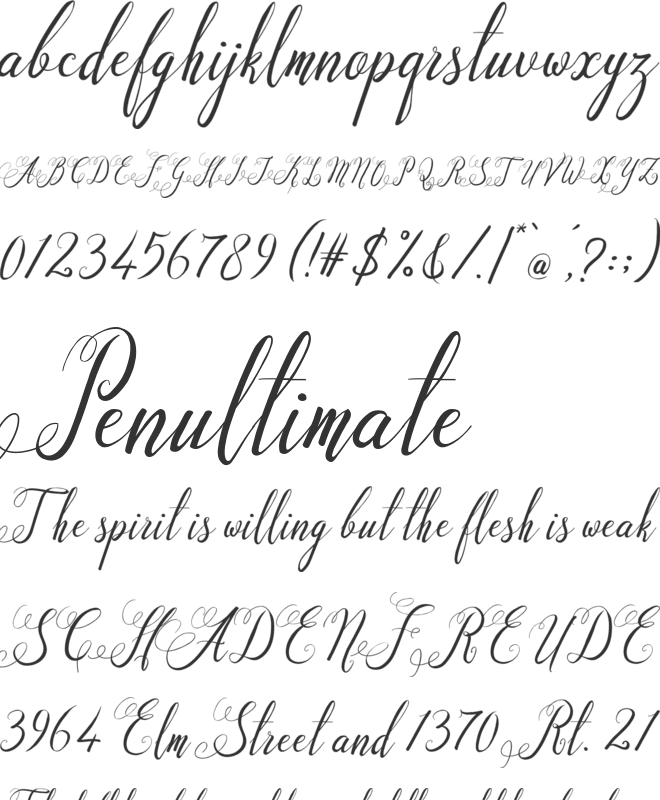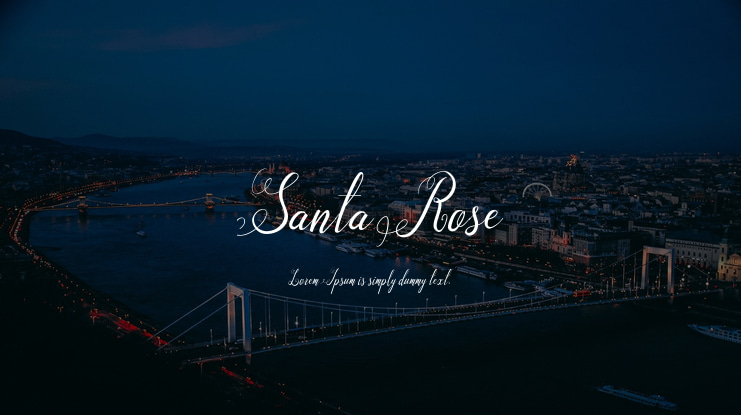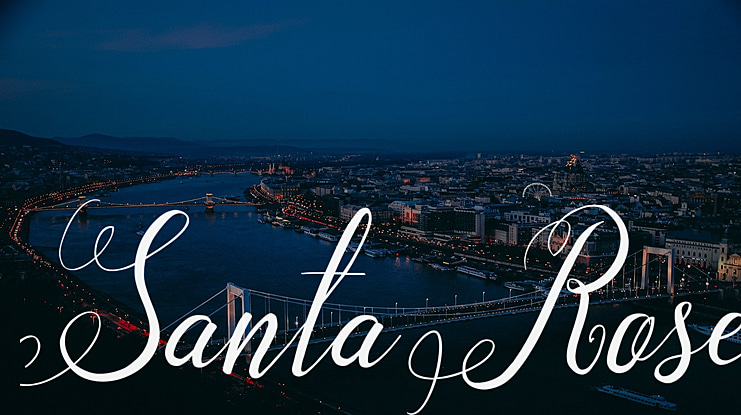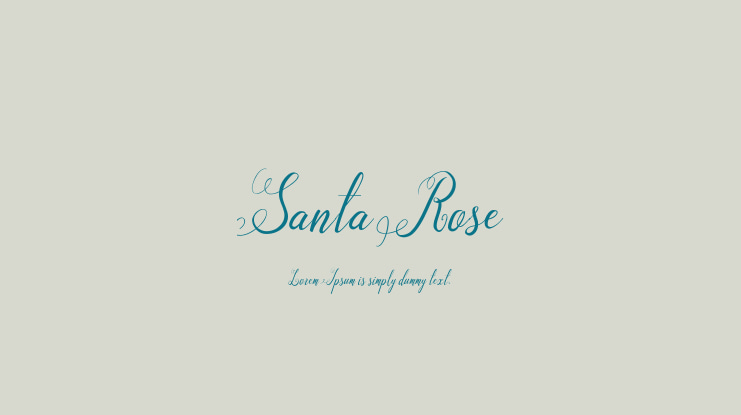
Santa Rose Font
Hi, I proudly present my new cute and beautiful handwritten script. With many of pretty alternate characters, it will nice to make your design cute and beauty as handwritten.
Features:
- All alternate characters appear to Alternate for Current Selection on Glyphs Panel - Contain 380 glyphs and supported to basic Latin character and eastern Europe language. - This font also featured with PUA encode, so it can be accessed with software who not supported to Opentype (Cricut, Silhouette, etc). (Use character Map for Windows OS, use Font Book for Mac OS). - Shortcuts for portable swash with "greater" and "less" (activate Contextual Alternates)
Santa Rose font preview